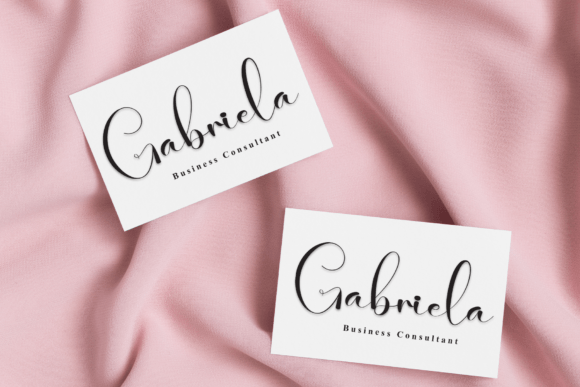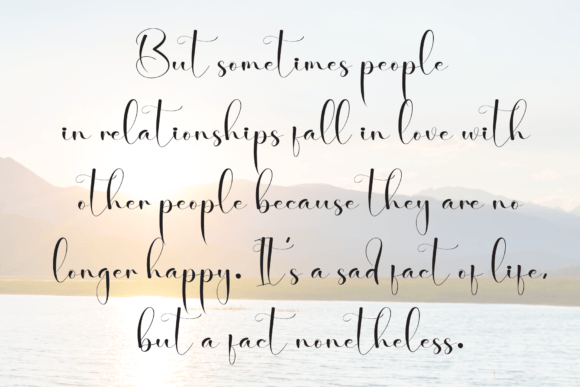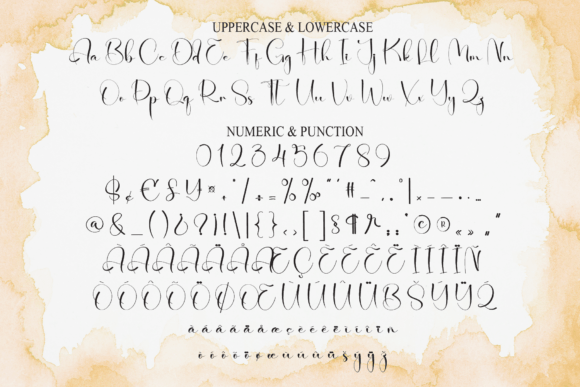
Introduction to Historya Font
Have you ever been working on a creative project, pouring your heart and soul into every detail, only to feel like something’s missing? That’s when you stumble upon the perfect design element – a font that speaks to your vision and elevates your work to the next level. For many designers, that magic moment comes when they discover the Historya Font.
This charming handwritten font is more than just a pretty face; it’s a high-quality design resource that brings warmth and personality to any project. With its smooth, flowing strokes and whimsical character, Historya Font is perfect for heartfelt invitations, cozy branding, and creative projects that demand a touch of elegance. And the best part? You can download it for free, allowing you to experiment with different designs and find the perfect fit for your vision.
Whether you’re working on a personal project or a commercial design, Historya Font is a valuable addition to your toolkit. Its transparent background and high-quality design make it easy to work with, and its versatility means you can use it in a wide range of creative applications. So why settle for a generic font when you can bring a little bit of history and personality to your designs with the Historya Font?
Key Features of Historya Font
• High-quality design resource ideal for creative projects
• Includes a range of characters and glyphs, making it suitable for a variety of applications
• Unique, vintage-inspired aesthetic, adding a touch of history and nostalgia to any design
Honest Review: Historya Font
As a designer, I’m always on the lookout for high-quality design resources that can elevate my creative projects. Recently, I stumbled upon the Historya Font, and I’m excited to share my honest review.
• ✨ The font is incredibly versatile and works well for a wide range of creative projects, from book covers to posters.
• ✨ The font has a transparent background, making it easy to use on any design project without worrying about background issues.
• ✨ The high-quality design of the font makes it perfect for designers who want to add a touch of elegance to their work.
• ⚠️ Some users may find the font’s design too ornate or distracting for certain projects.
Overall, I’m impressed with the Historya Font’s potential and versatility. While it may have some limitations, it’s a great design resource for designers on a budget or for those looking to add a touch of elegance to their creative projects.
To get the most out of Historya Font, try combining it with other high-quality design resources, such as images and graphics. You can also experiment with different font sizes, colors, and styles to create a unique and eye-catching design.
Historya Font is a versatile design resource that can be used in a variety of creative projects, including logos, brochures, business cards, and more. Its high-quality design and transparent background make it a popular choice among designers and creatives.